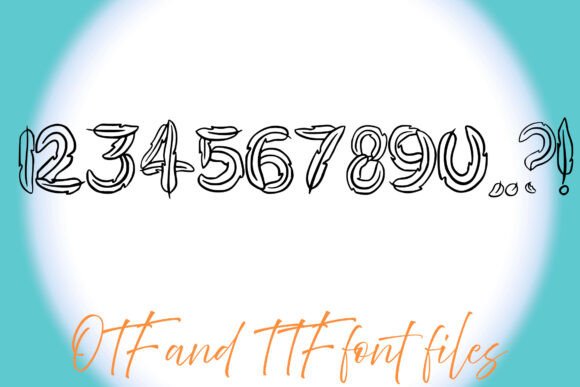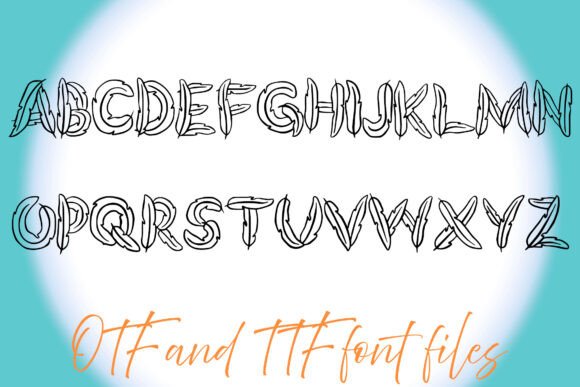
Let Your Designs Soar with Feather Bird Font
I’ll never forget the time I was working on a whimsical children’s book project, and my client asked me to create a title page that would make their story stand out. I scoured the internet for the perfect font, but nothing seemed quite right. That was until I stumbled upon Feather Bird Font. Its unique, feather-like strokes instantly captured the essence of the story, and I knew I had found the perfect fit. In this article, I’ll share my experience with Feather Bird Font, its features, and how to make the most of it in your designs.
A Personal Review of Feather Bird Font
- ✨ Unique and eye-catching design: Each character is crafted to mimic the texture and shape of feathers, making it perfect for nature-inspired projects.
- ✅ Highly versatile: Suitable for fantasy themes, animal projects, educational materials, and whimsical branding.
- 🌟 Elegant and airy feel: Adds a touch of sophistication to any design.
While Feather Bird Font is an excellent choice for many projects, there are a few things to keep in mind:
- ⚠️ Limited use in formal or corporate designs: The font’s playful nature makes it less suitable for formal or professional projects.
- 🤔 May not be ideal for very small text sizes: The feather-like details can become lost at smaller sizes.
The Story Behind Feather Bird Font
Feather Bird Font was designed by a creative team passionate about nature and typography. Inspired by the beauty of feathers and the world of birds, they crafted a font that would bring a touch of whimsy and elegance to any design. With its unique feather-like strokes, Feather Bird Font is perfect for designers, crafters, and creative hobbyists looking to add a touch of the natural world to their projects.
| Font Name | Feather Bird Font |
| Author | squeebcreative |
| What type of projects is Feather Bird Font best suited for? | Fantasy themes, animal projects, educational materials, and whimsical branding. |
| Is Feather Bird Font available in different weights or styles? | Currently, Feather Bird Font is available in a single weight, but the design team may release variations in the future. |